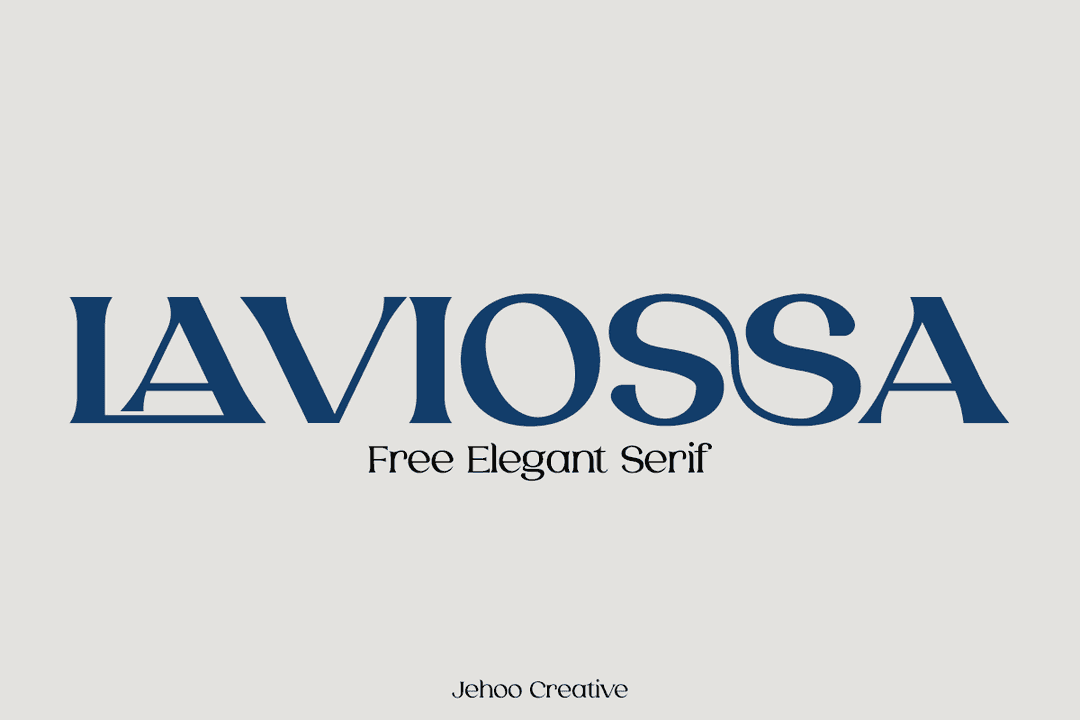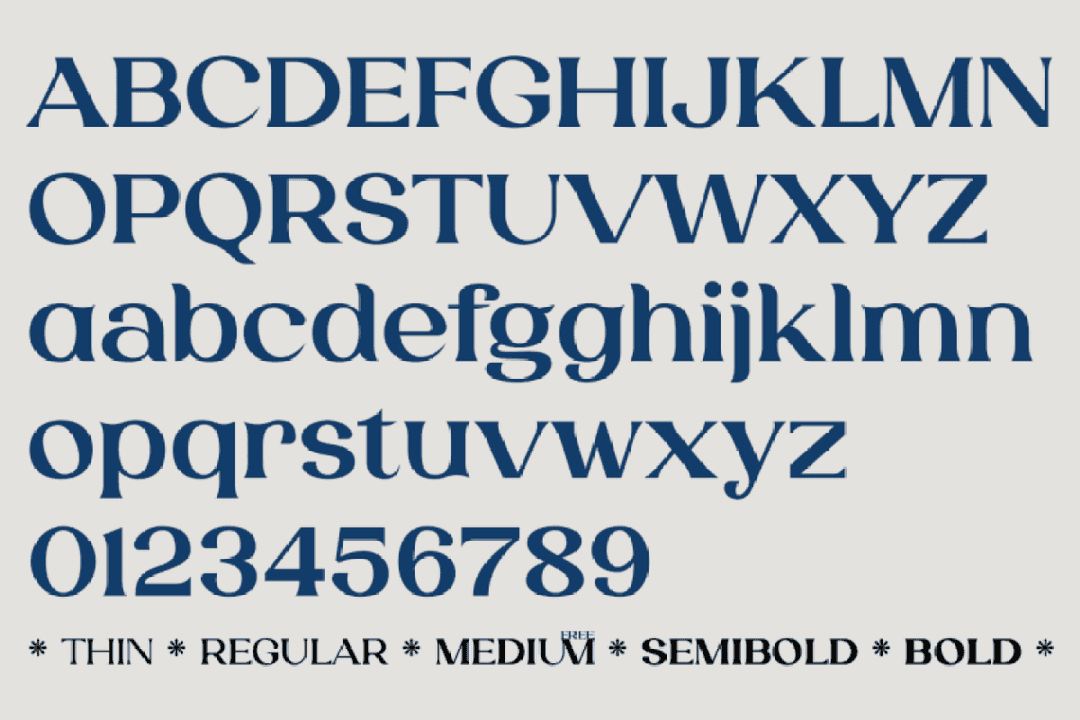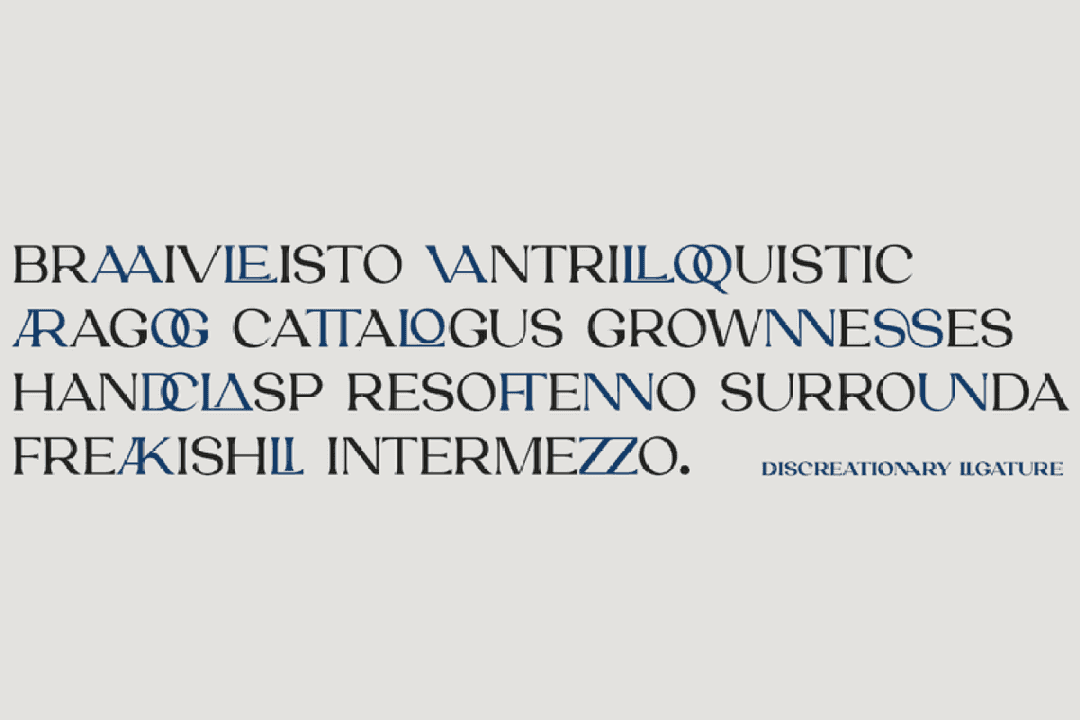
Laviossa is an elegant font created by Jehoo Creative with clean lines and a modern touch and, it features Ligatures to join characters together. The smaller letters exhibit the characteristic of flexing wind and the strokes are smooth which give people a deep impression and can be easily incorporated in to designs. Laviossa font is intended to help your design to get noticed, the binder of this font is very stylish and suitable for minimalistic and clear designs.